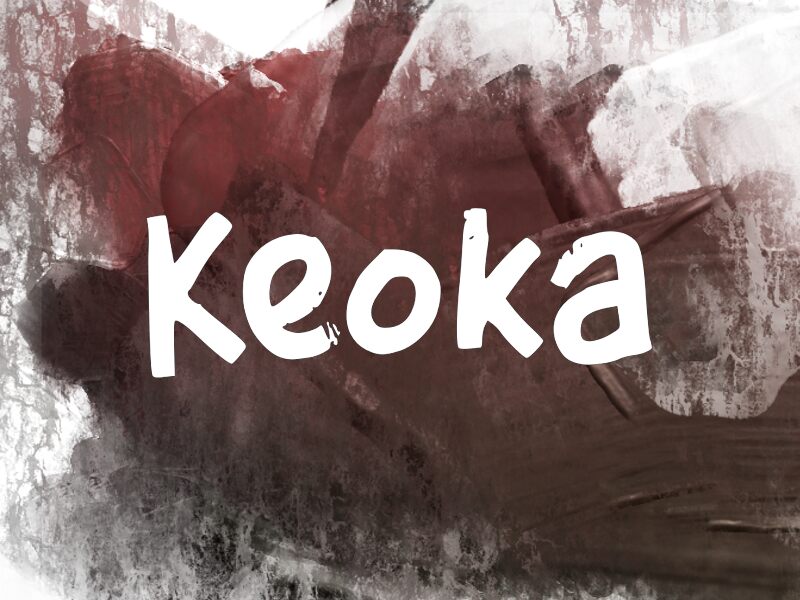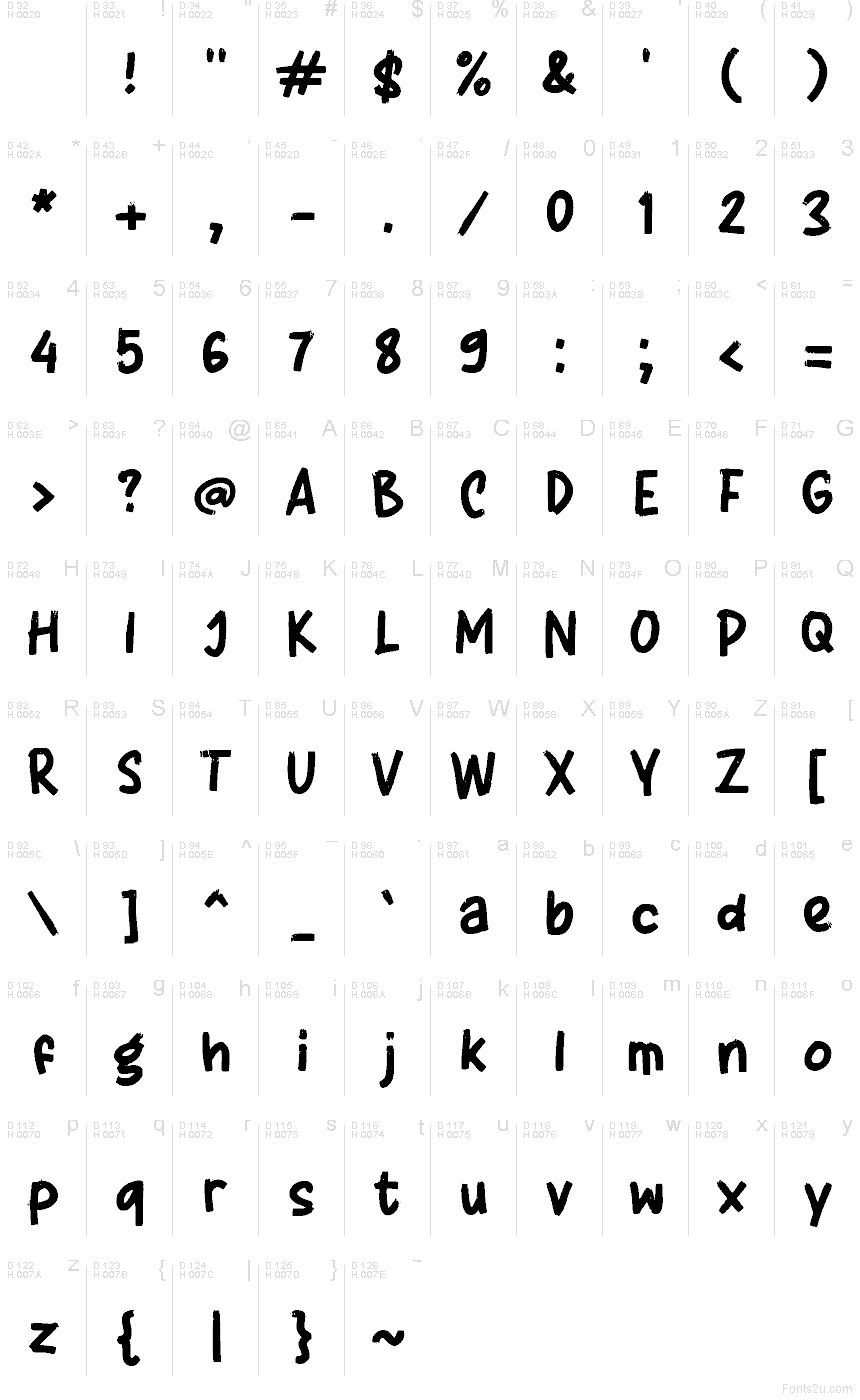
Keoka
Keoka font by wep is a free comic display typeface with a bold, brushy personality that looks like it’s been scrawled in thick marker. The letters feel lively and a little messy in the best way—uneven edges, chunky strokes, and a casual rhythm that reads as fun rather than sloppy. It brings an instant hand-drawn energy, great when you want text to feel like it was doodled straight onto the page.
Using Keoka, you can give real character to kids’ book covers, comic panels, playful logos, party invitations, thumbnails, and social media graphics. This free font shines when it’s big and loud, where the rough texture and wobble can really show. Pair Keoka with a clean, neutral sans serif for body copy to keep things readable while the headlines do all the shouting.